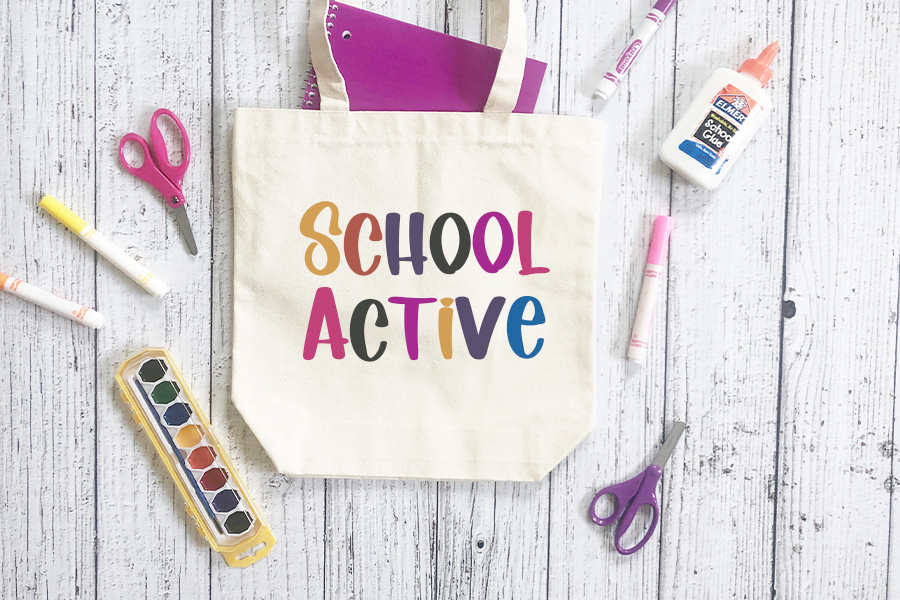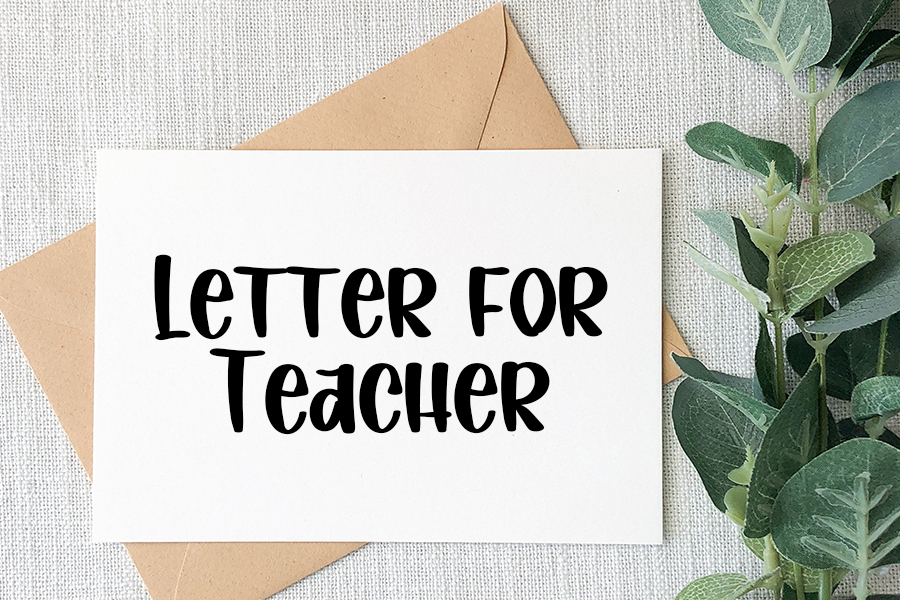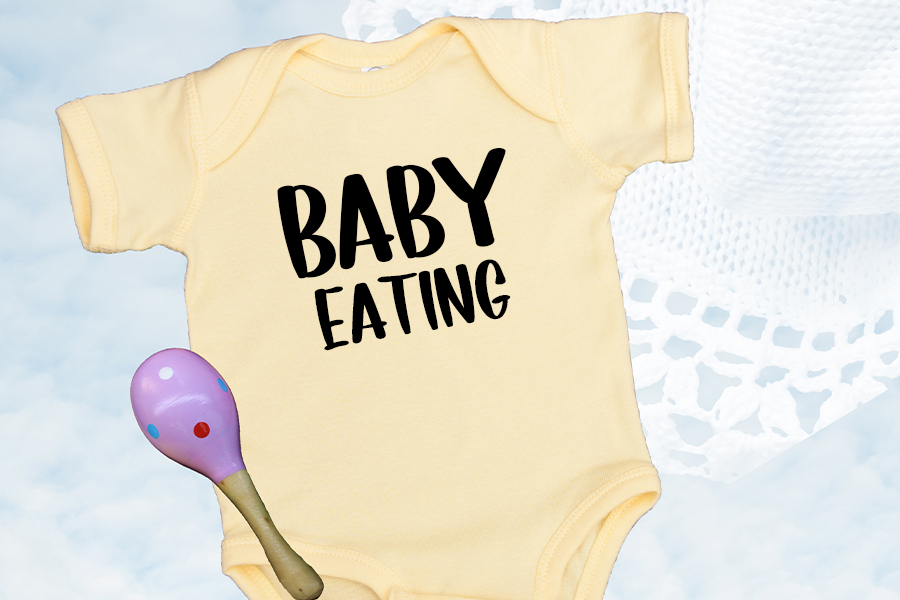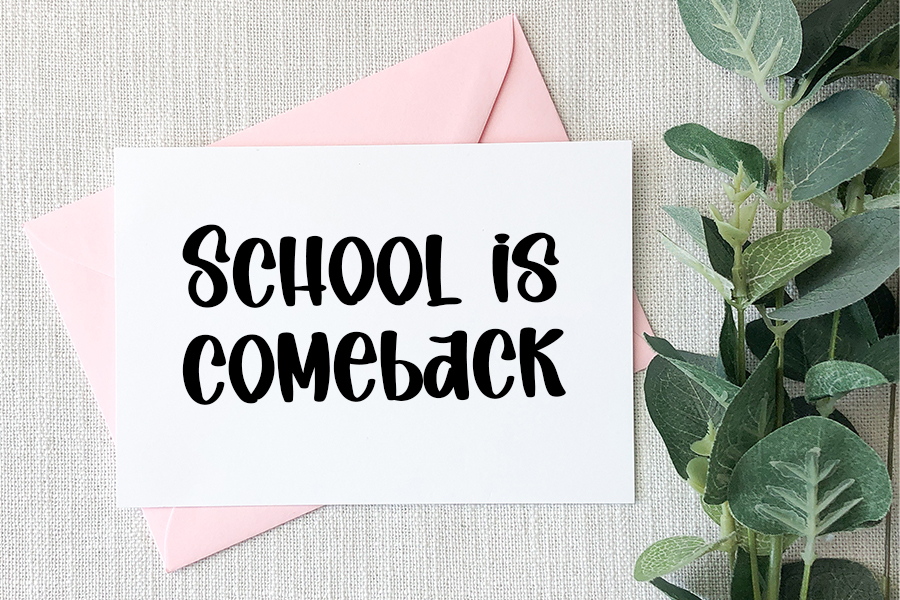
DIARY SCHOOL Font
DIARY SCHOOL Display Font
This is a relaxed and beautiful paint brush handwritten font. It can be used for various purposes such as logos, wedding invitations, headings, t-shirts, letterhead, signage, labels, news, posters, badges and so much more.